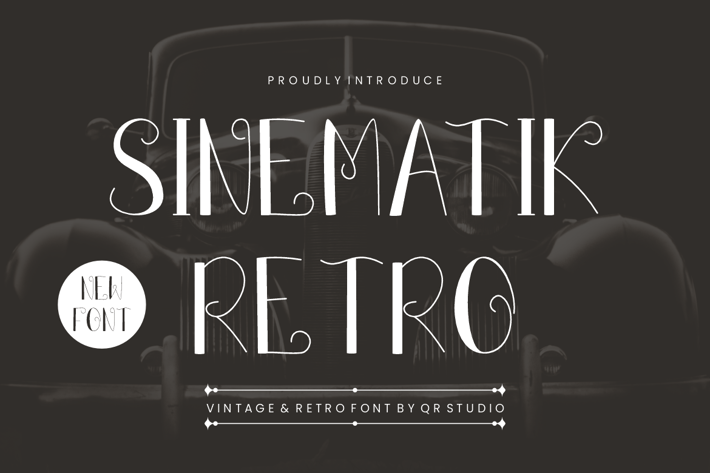
Sinematik Retro Font
Sinematik Retro Font is a bold and authentic display font.
The font is suitable for any branding project like poster, vintage, classic, logo, sport, and many more.